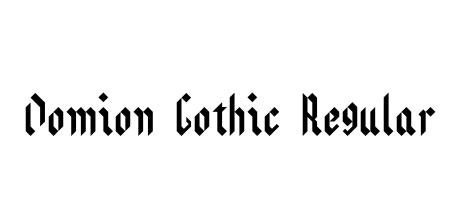
Domion Gothic
By Matteo Dall''Olmo
Category  Display, Decorative, Bold, Sans-serif, Serif, Blackletter, Gothic
Dominion Gothic Regular: A bold, blackletter typeface, its sharp, angular serifs and condensed letterforms evoke a medieval aesthetic. The letters are heavy and darkly imposing, hinting at power and tradition. Its gothic style is both elegant and severe, creating a striking visual presence.